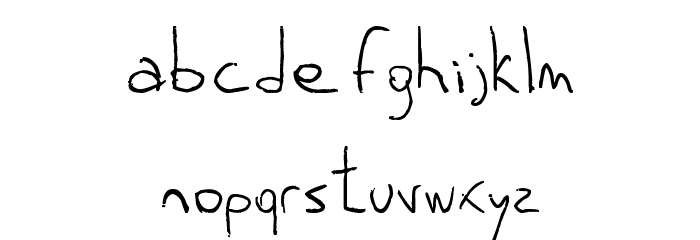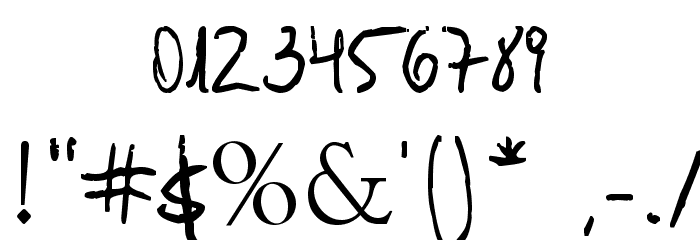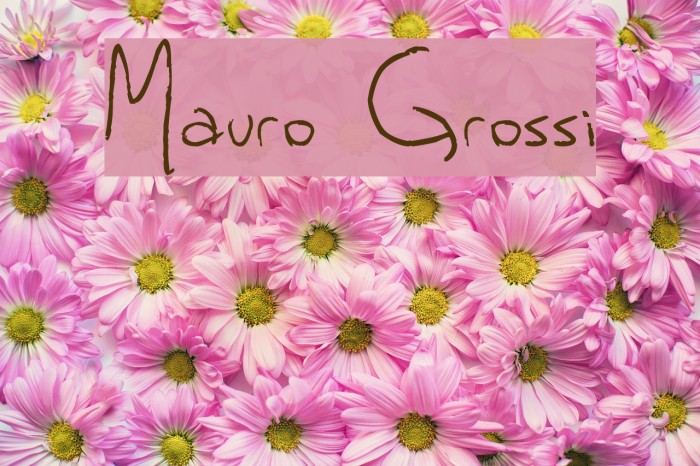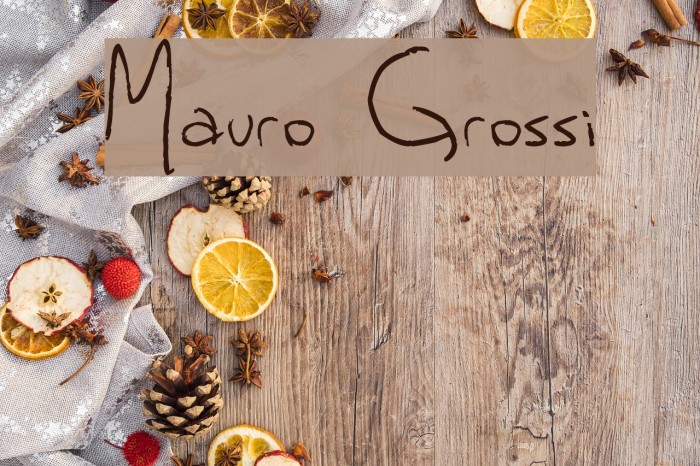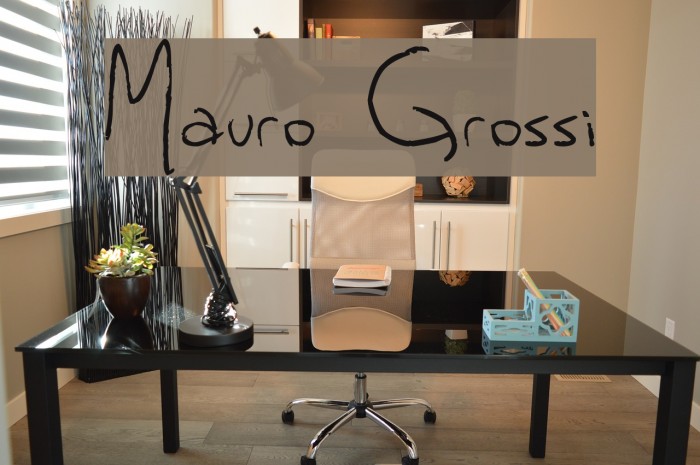
Mauro Grossi Font
This font exhibits a distinctive handwritten style with an organic and spontaneous appearance. The characters are irregular and dynamic, with varying stroke thickness that adds to its casual and artistic feel. The uppercase letters are bold and expressive, while the lowercase letters maintain a consistent flow, enhancing the font's overall informal charm. Numbers and special characters follow the same playful and unrefined aesthetic, making it suitable for creative and unconventional designs. The font's unique personality makes it stand out, offering a sense of individuality and creativity.
A dynamic, handwritten font with an artistic and casual style.
- Proposed Projects: Ideal for artistic projects, personal branding, creative posters, and informal invitations.
- Category: Handwritten
- Overall Style: Artistic
- Use Case: Logos, Headlines, Creative projects